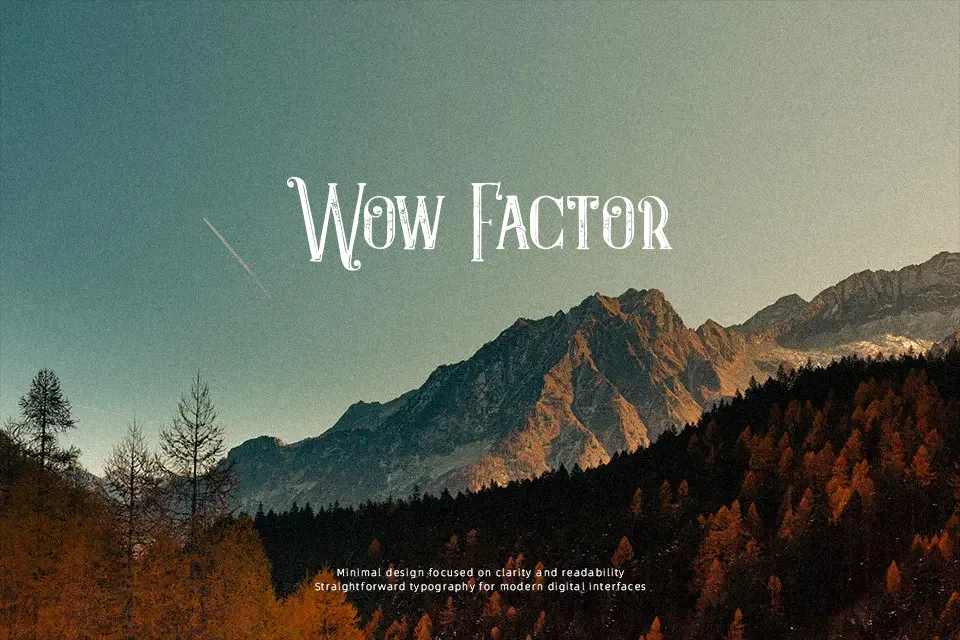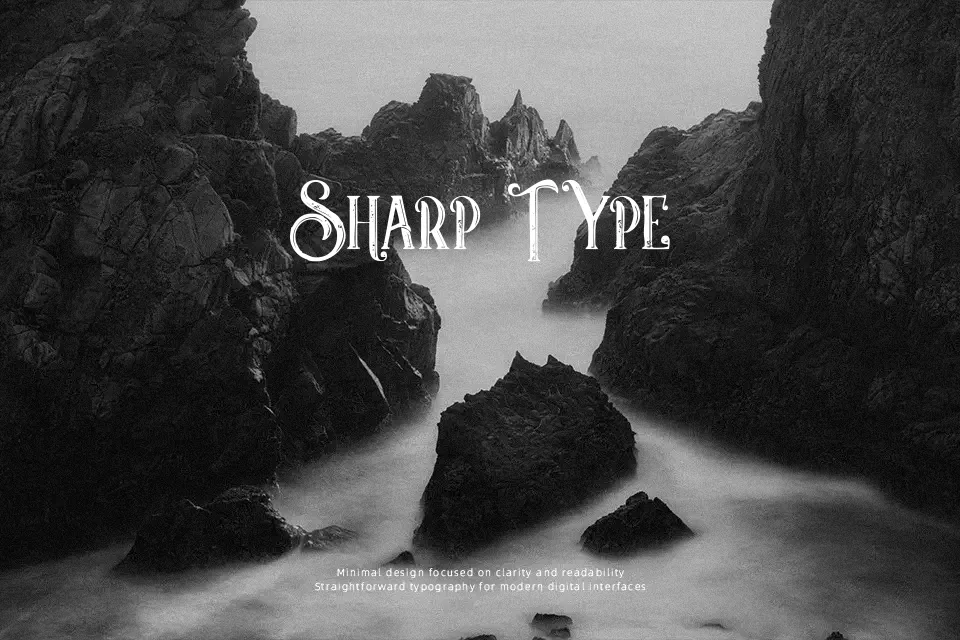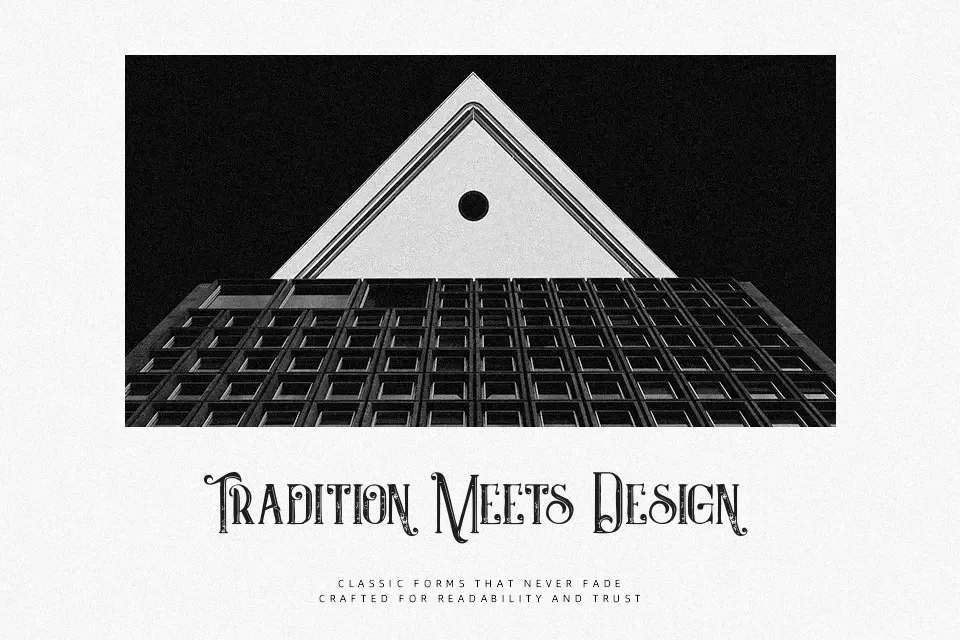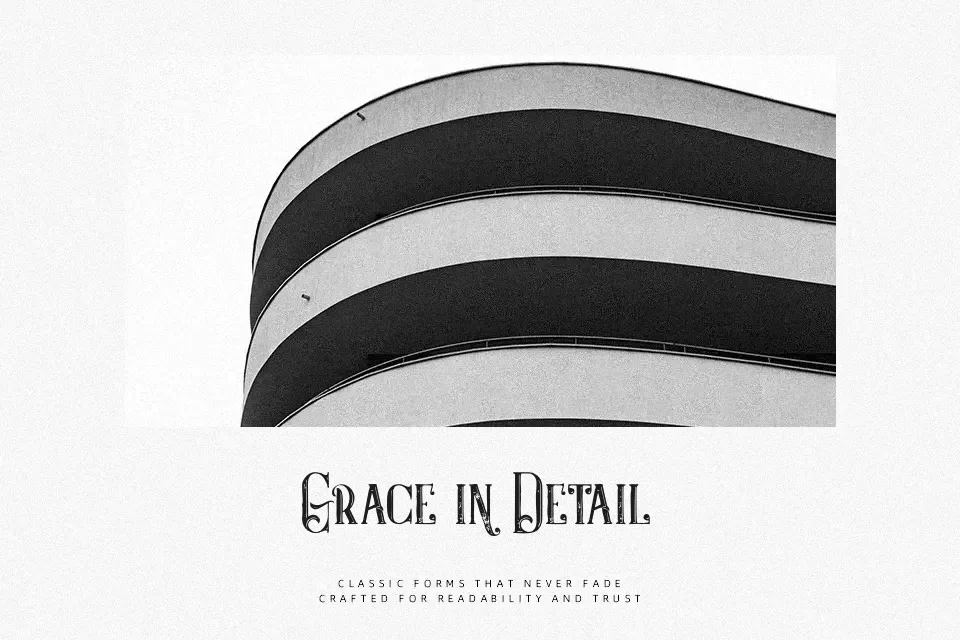
Castile Font
Designed by Peter Olexa
Castile Font presents a dramatic all-caps serif design built with sharp triangular serifs and intricate inline weathering. The letterforms feature broad proportions, substantial vertical stroke weight, and deliberate internal cuts that evoke traditional carved stone with aged letterpress distress. Generous spacing between glyphs prevents the distressed inner details from blurring together across medium and large formats. The typeface performs reliably across craft packaging labels, thematic event banners, and editorial cover titles where strong historical atmosphere is essential. However, the heavy ornamentation and lack of lowercase forms make continuous reading difficult across dense editorial paragraphs. The intricate inline engraving helps display titles command attention across physical signage.
Best For: vintage product packaging, craft beverage labels, event headline banners, apparel graphic prints
Not Ideal For: continuous paragraph text, mobile user interfaces, small caption typography, spreadsheet data tables